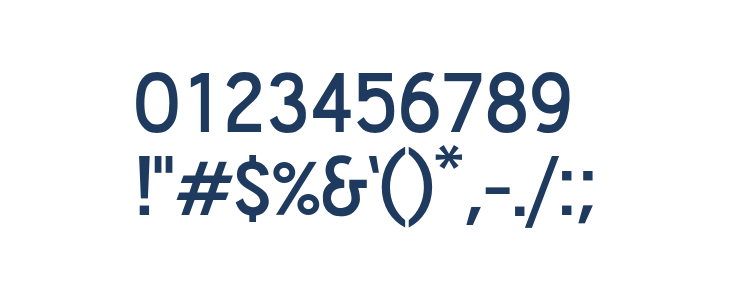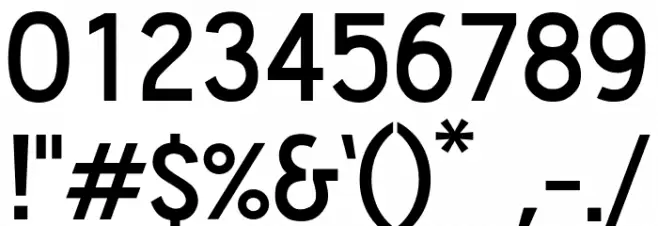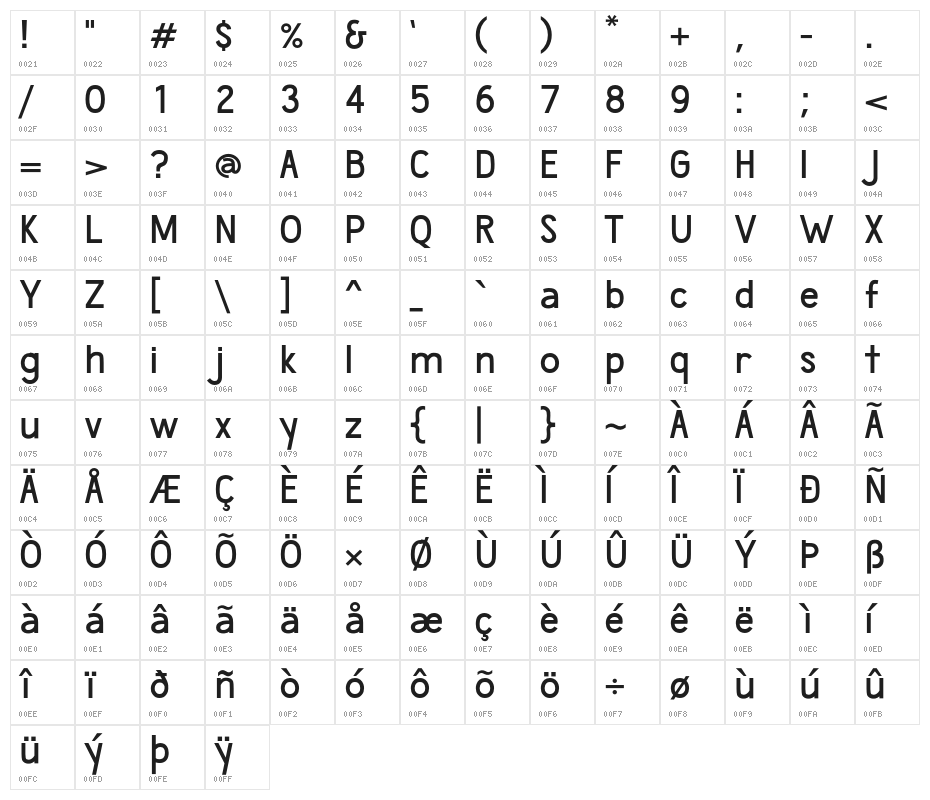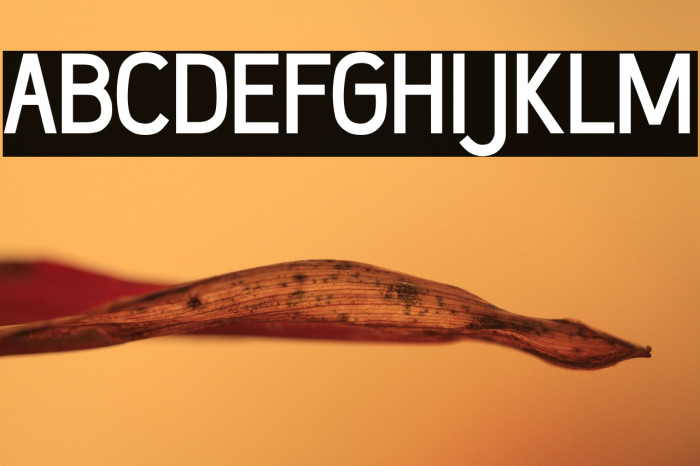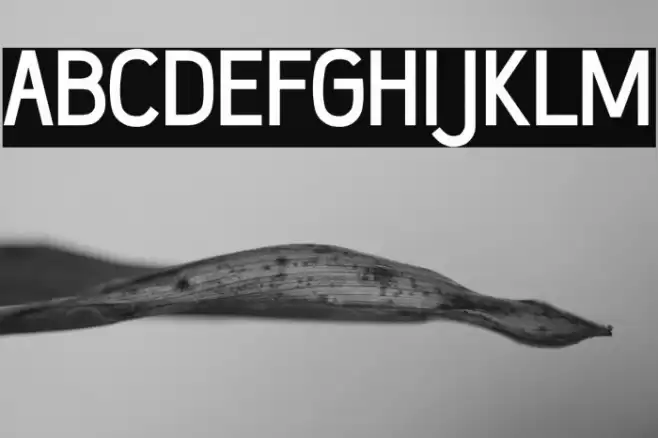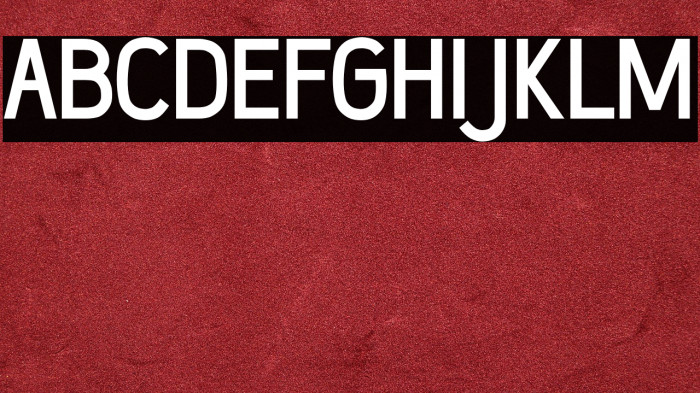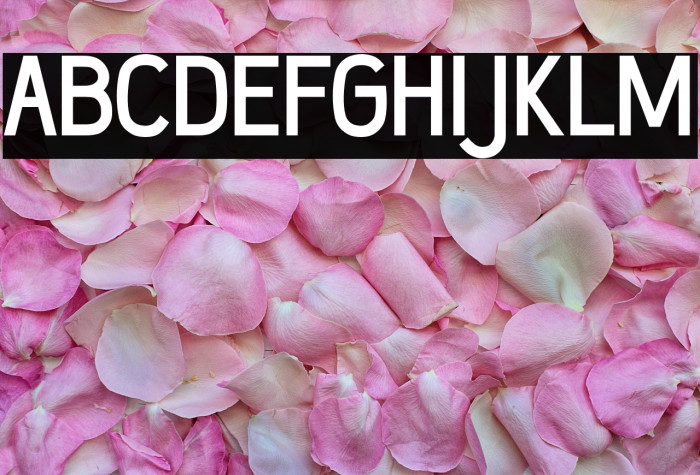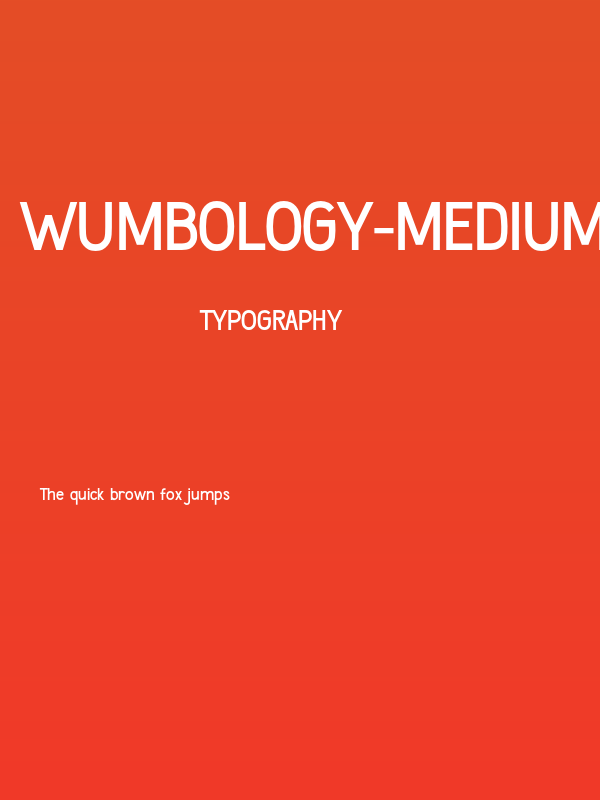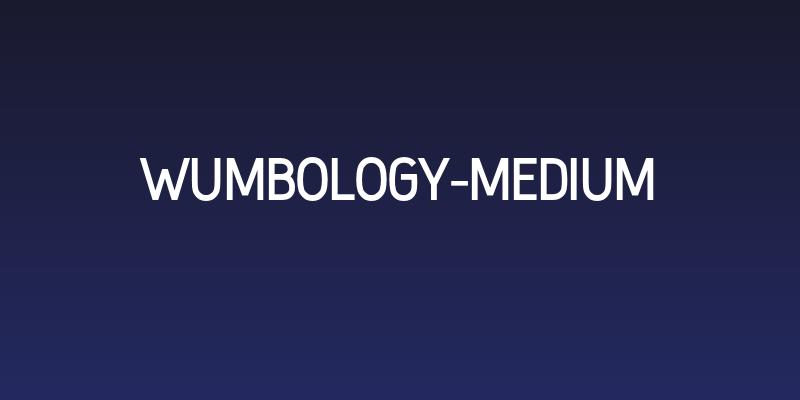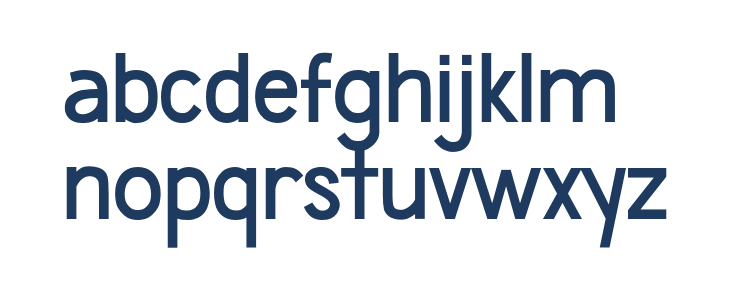
Wumbology-Medium Font
Wumbology-Medium Description
This font features a clean and modern sans-serif design, characterized by its uniform stroke width and geometric shapes. The uppercase letters are bold and assertive, while the lowercase letters maintain a consistent height and spacing, ensuring readability. The numerals are clear and straightforward, matching the overall aesthetic of simplicity and functionality. Special characters are well-integrated, maintaining the font's cohesive look. This font is versatile, suitable for both digital and print media, offering a professional appearance that is ideal for a wide range of applications.
| Proposed Projects | Ideal for branding, web design, corporate materials, and editorial content. |